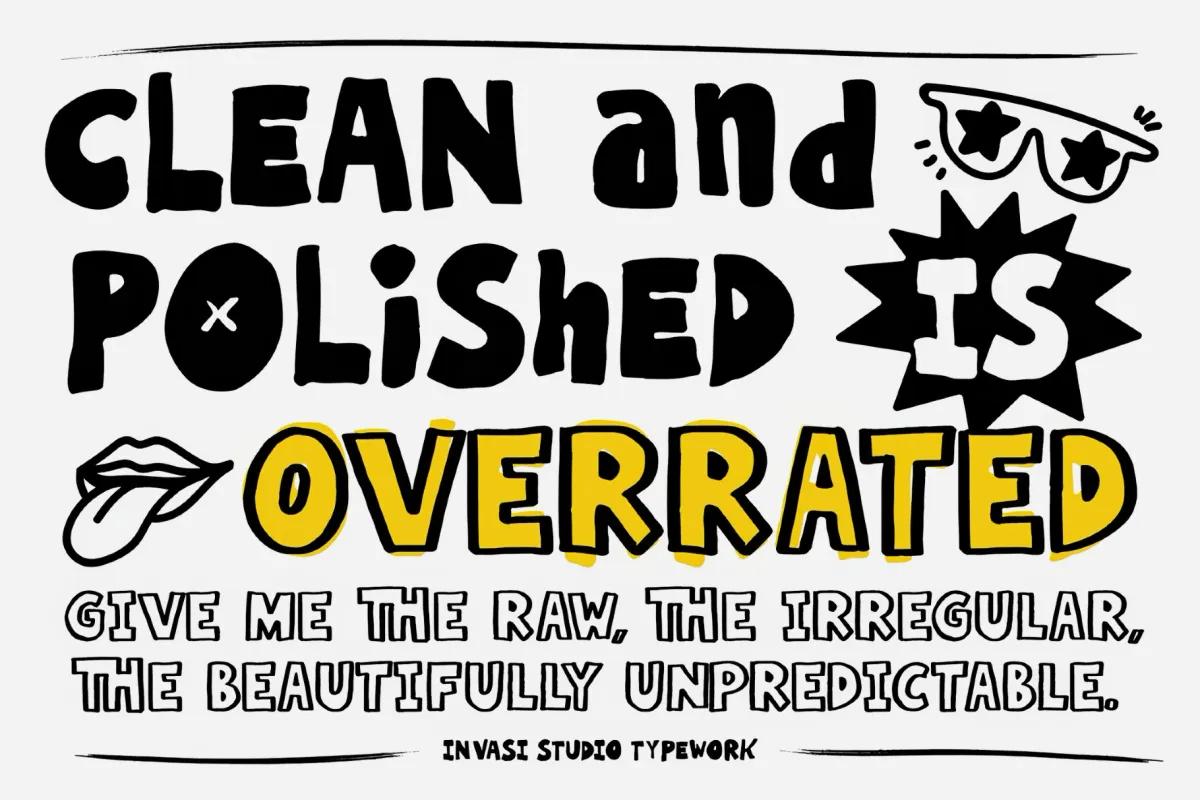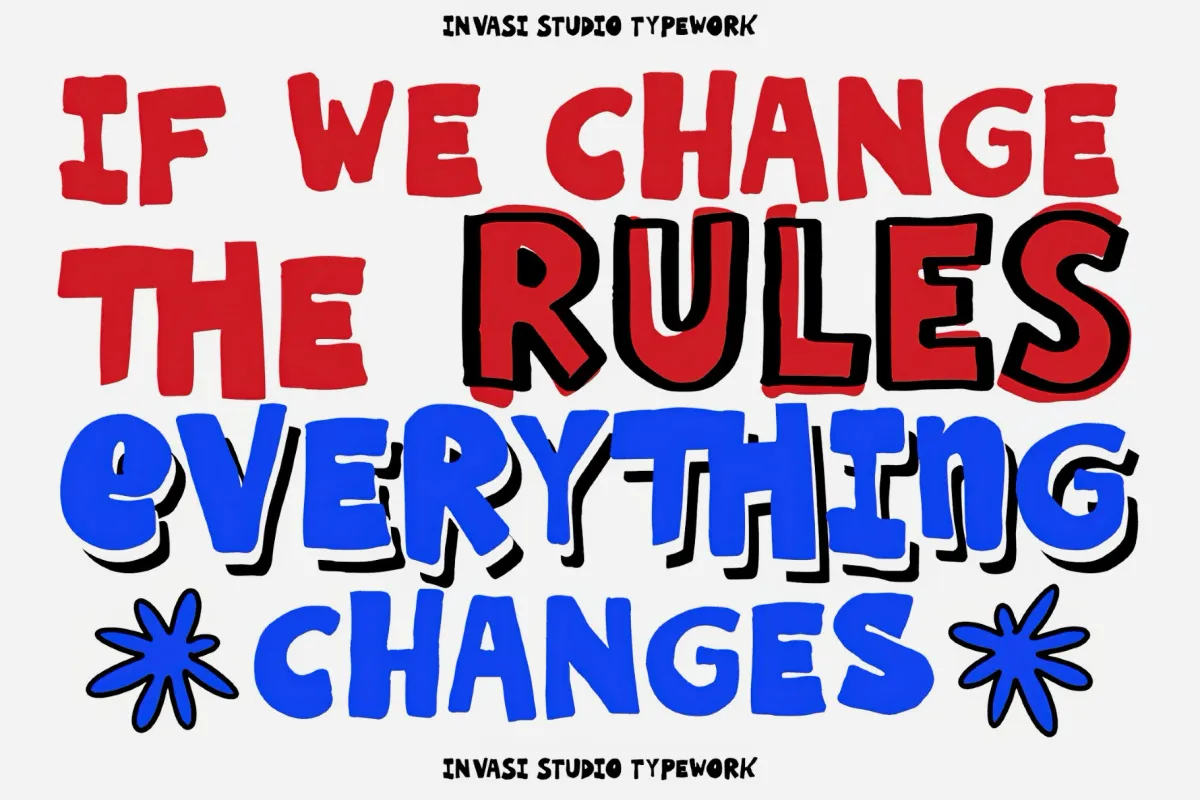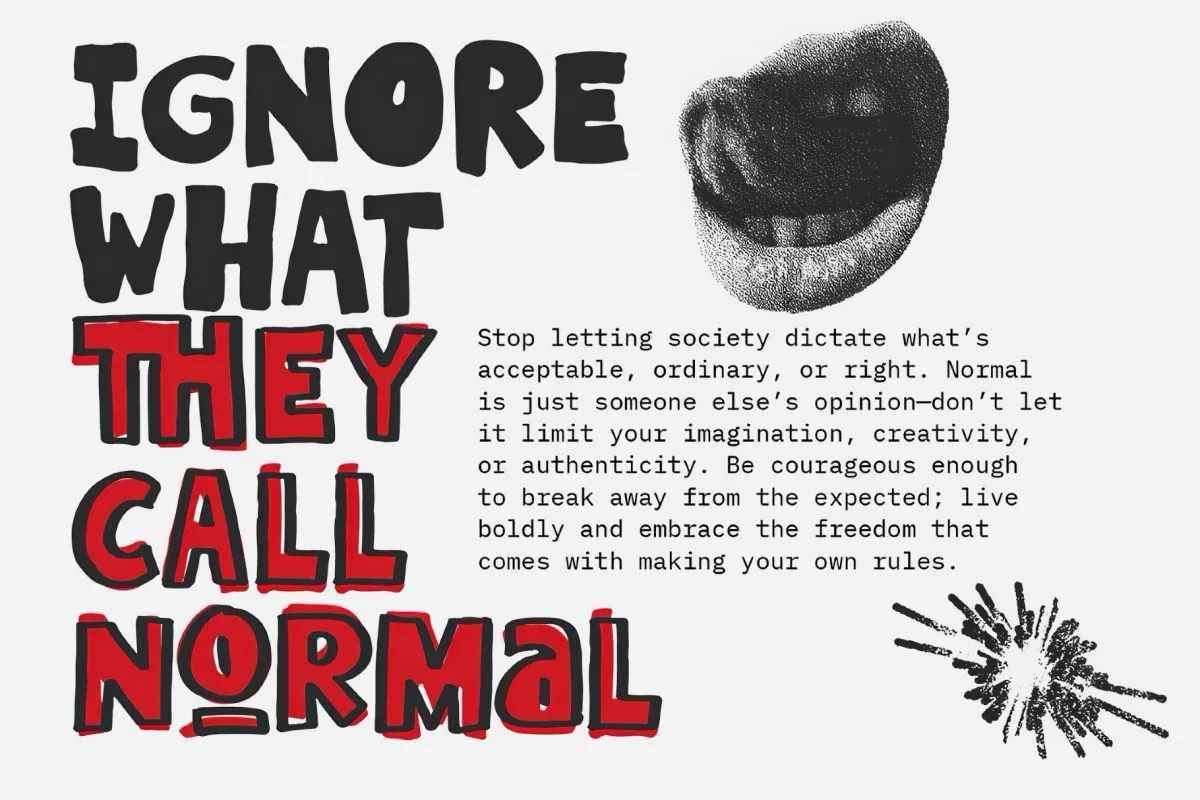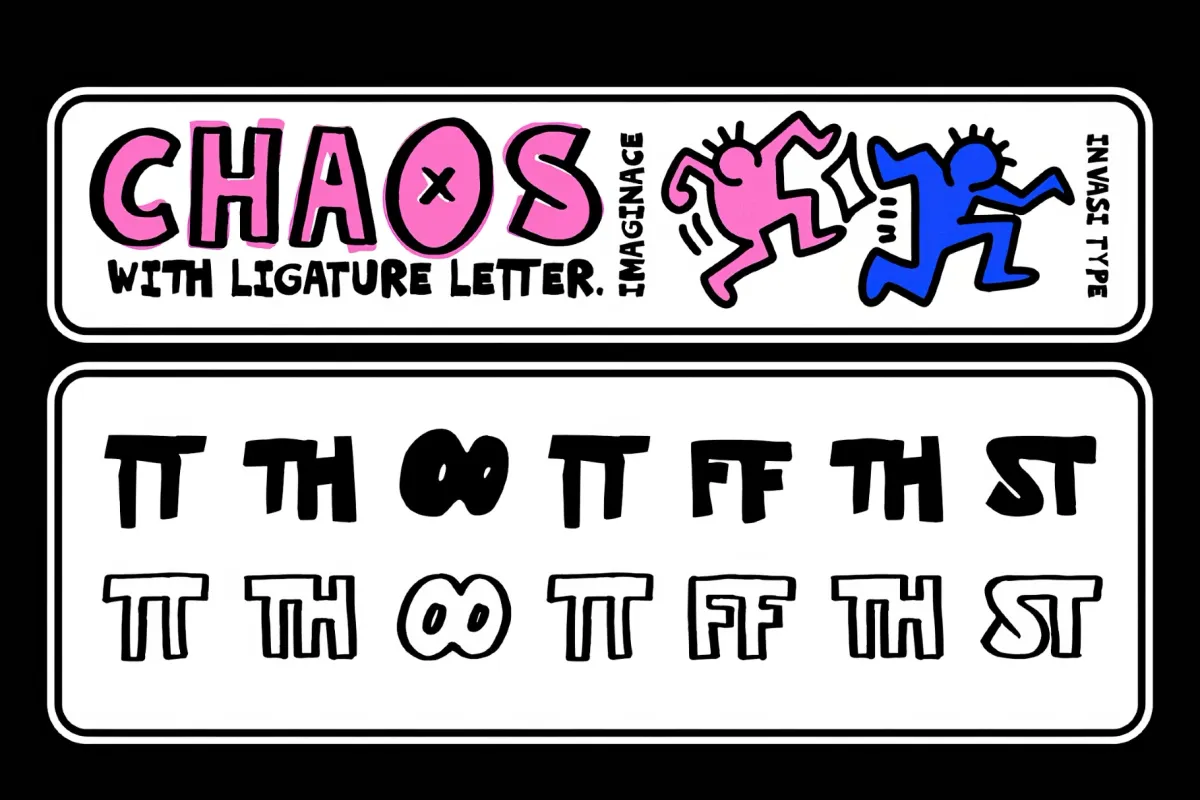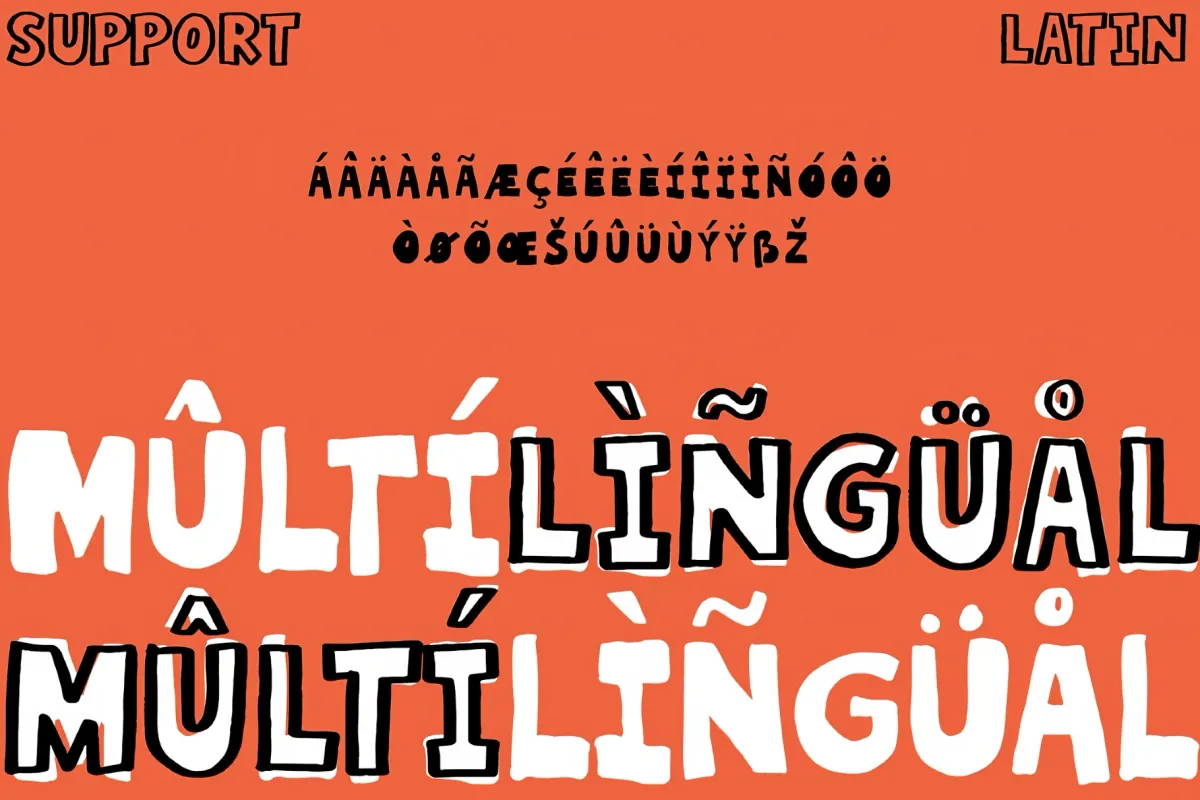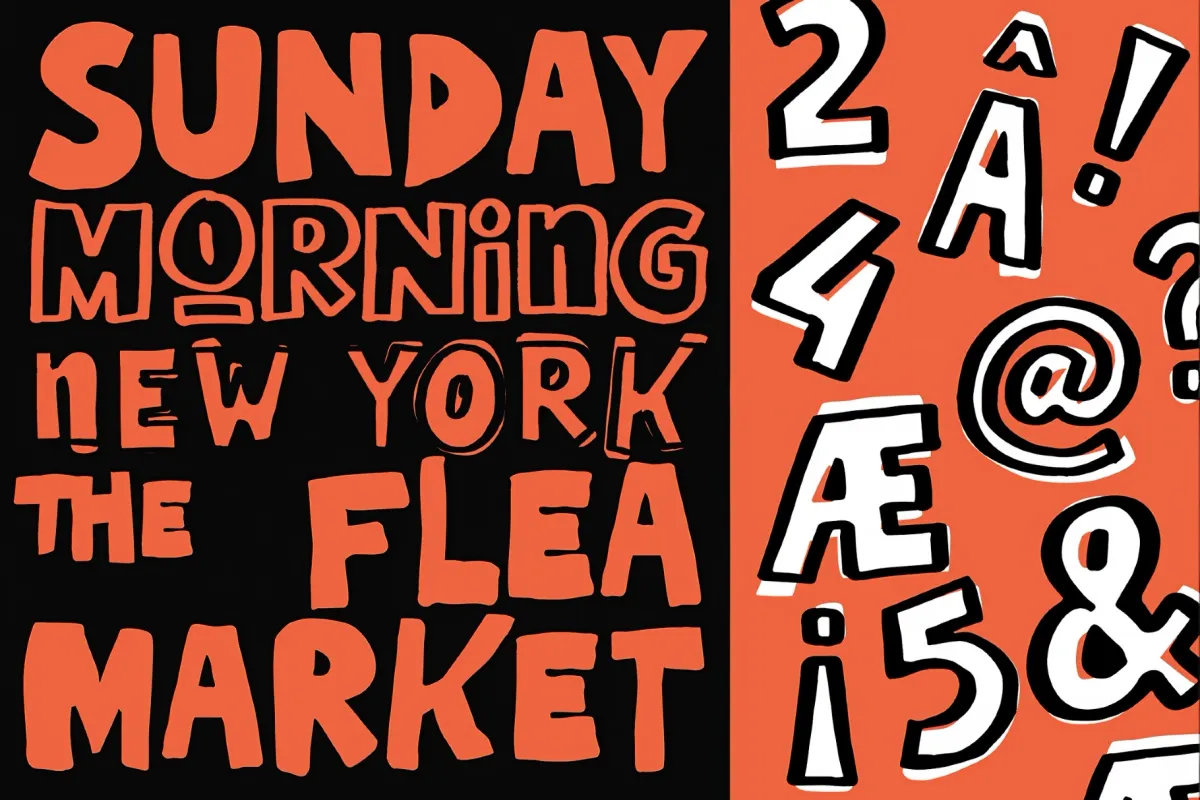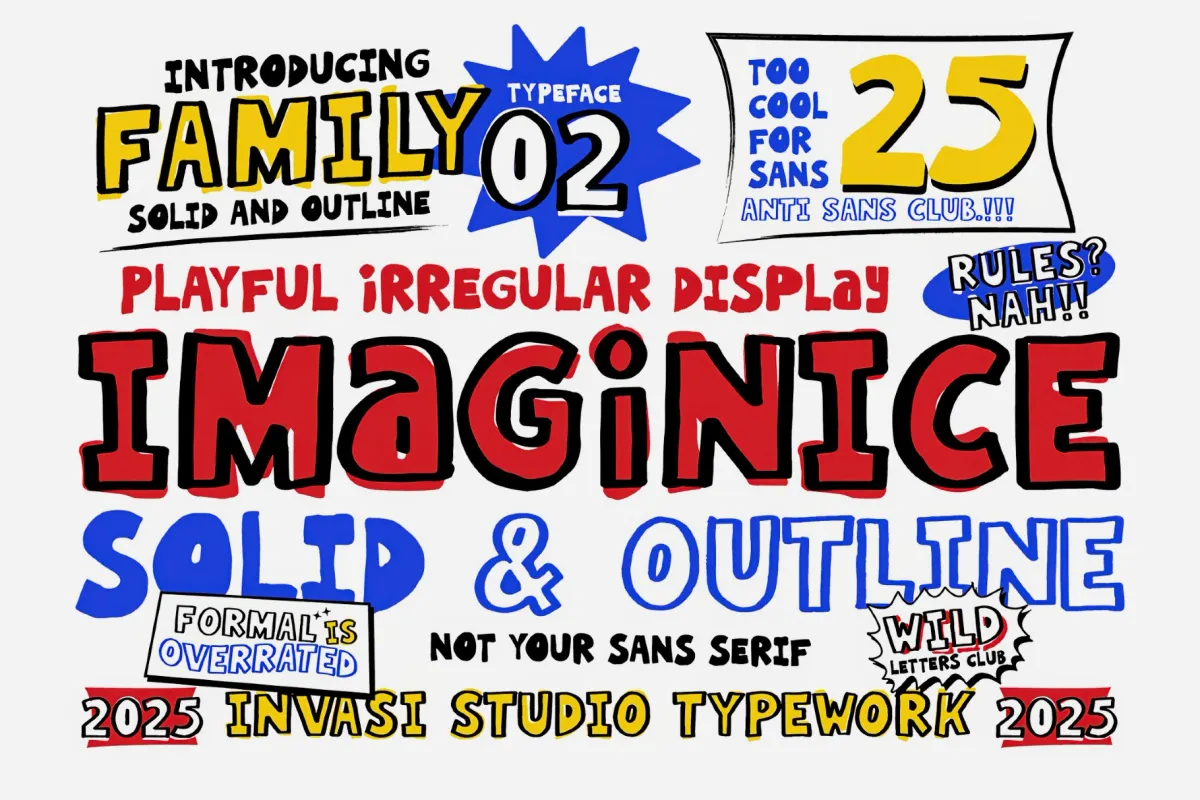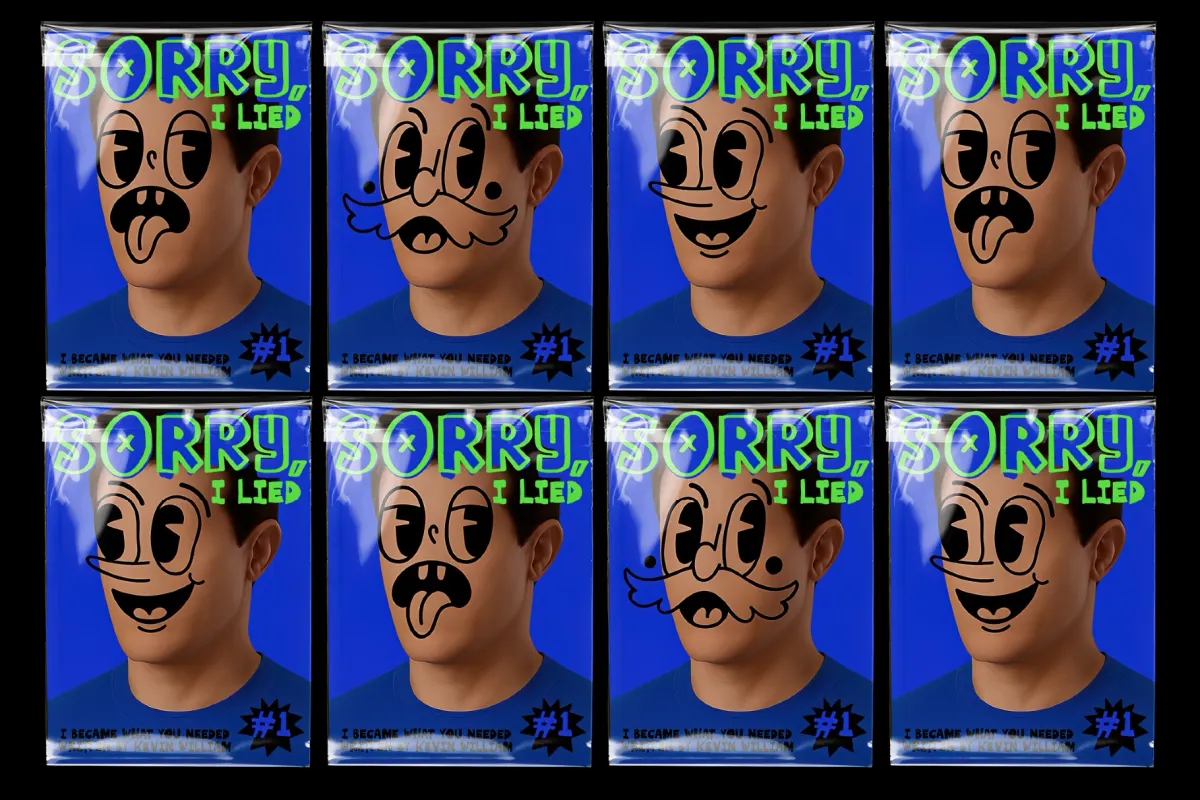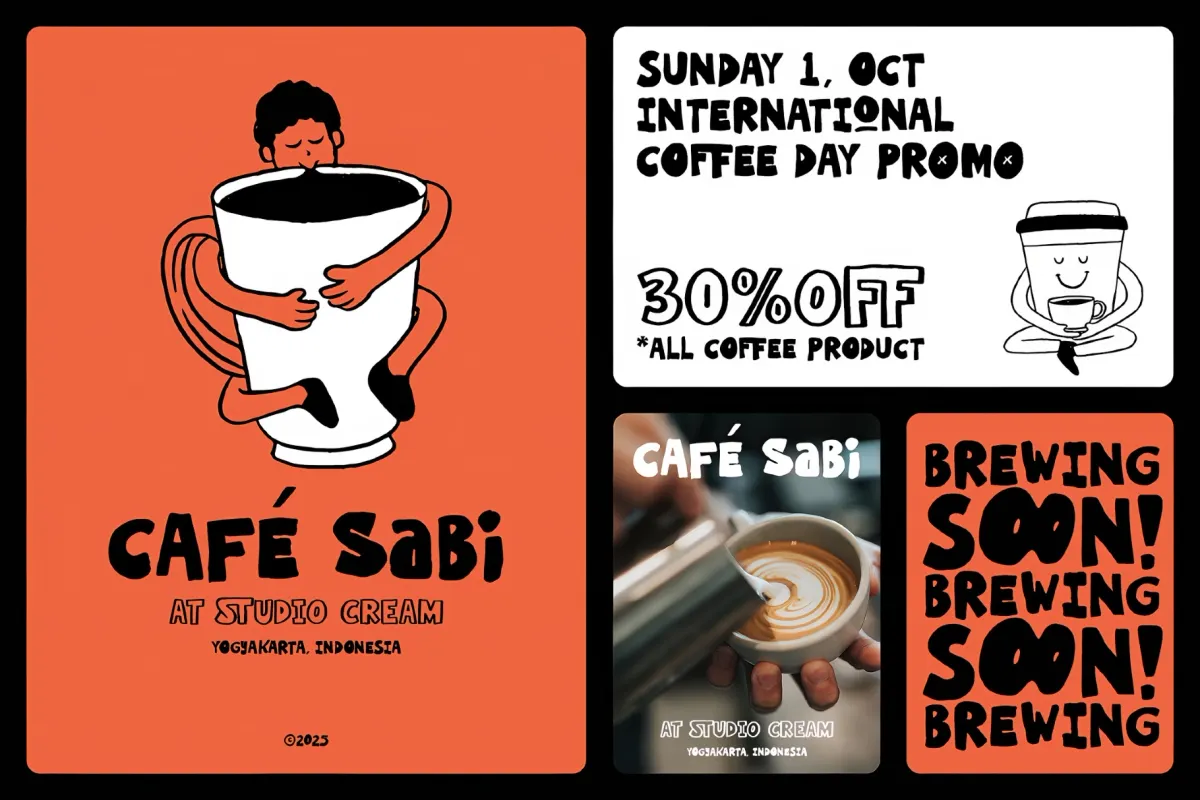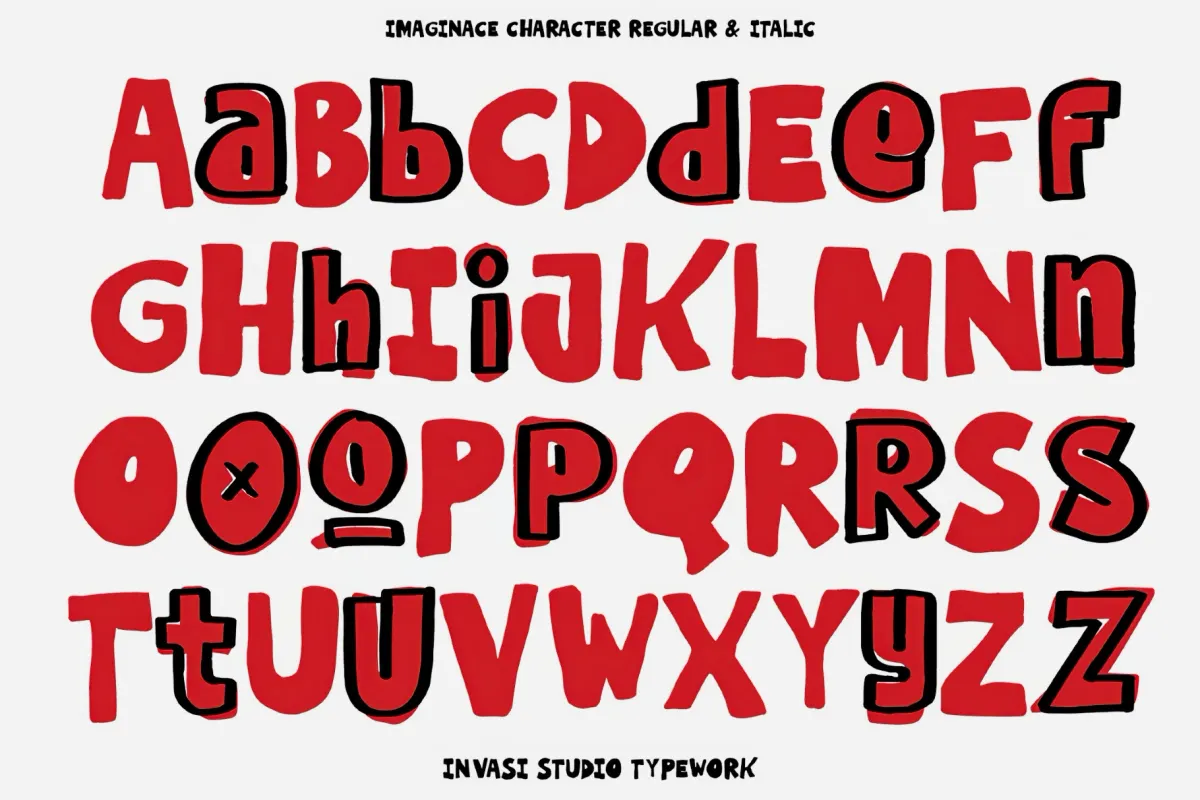
Imaginice – Raw Playful Family Font
Imaginice seems to have flunked penmanship on purpose. Its letters are hand-drawn and a little off — uneven weights, wobbling baselines, caps and lowercase that refuse to line up — plus the raw, marker-scrawled look of a kid tagging a notebook. This playful display font ships in two builds, solid and outline, so you can fill it in loud or leave it open and sticker-ready.
Mix the two the way the previews do: solid caps for the punchline, outline for the setup, one word filled and the next one hollow. Built-in ligatures and alternate letters keep repeats from matching, so a line never falls into a neat rhythm. Put Imaginice on zine covers and comic panels, sticker sheets and skate graphics, music posters, kids' and toy branding.
• two styles — solid and outline;
• uppercase and lowercase, with alternate letters and ligatures;
• multilingual support;
• numerals, punctuation, and currency.